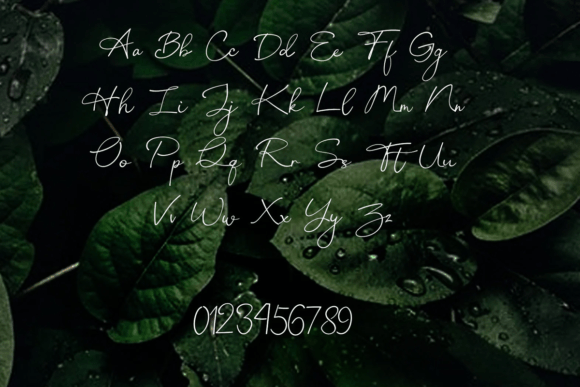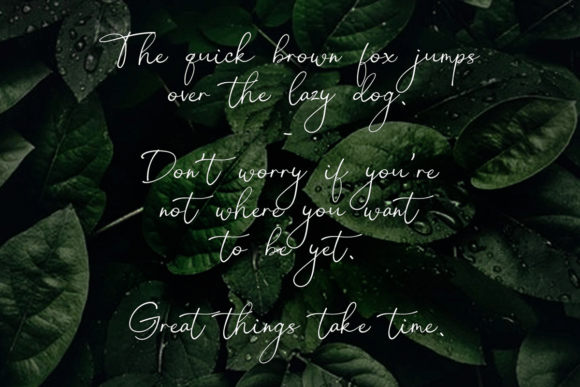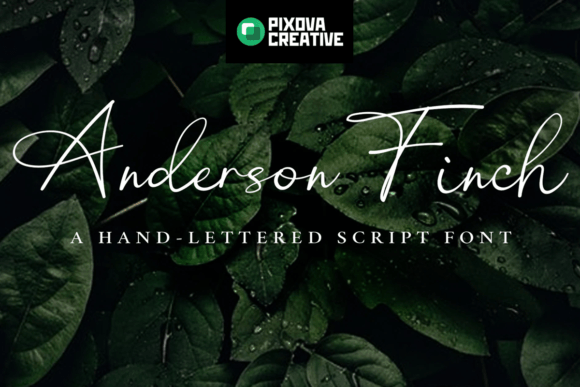
Discover the Elegance of Anderson Finch Font: Elevate Your Designs with Sophistication
In the world of typography, fonts play a crucial role in conveying the tone and personality of a design. For those seeking a stylish script font that blends elegance with a personal touch, Anderson Finch is an exceptional choice. This beautiful font is designed to add a touch of sophistication to any project, making it perfect for designers and crafters looking to create stunning visual content.
The Unique Charm of Anderson Finch Font
Anderson Finch Font stands out with its flowing curves and unique flair, offering a distinctive look that can elevate a wide range of design projects. From elegant invitations and wedding cards to professional branding and packaging, this font brings a level of refinement and class that is hard to achieve with standard typefaces.
Key Features of Anderson Finch Font
- Elegant Script Style: Anderson Finch boasts a beautiful script style that adds an element of grace and sophistication to any text.
- Flowing Curves: The font’s design features smooth, flowing curves that contribute to its elegant appearance.
- Unique Flair: What sets Anderson Finch apart is its unique flair, which gives it a personal and distinctive touch.
- Versatility: This font is incredibly versatile, suitable for a variety of design projects including invitations, branding, packaging, and more.
- Easy to Read: Despite its elegant and cursive nature, Anderson Finch maintains a high level of readability, making it practical for both digital and print designs.
Uses of Anderson Finch Font
The versatility of Anderson Finch Font makes it an excellent choice for numerous design applications. Here are some of the most popular uses:
- Wedding Invitations and Stationery: Add a touch of elegance to wedding invitations, save the dates, and other stationery with Anderson Finch.
- Branding and Logo Design: Use Anderson Finch to create a sophisticated brand identity that stands out from the competition.
- Packaging Design: Elevate your product packaging with a font that communicates luxury and quality.
- Digital Media: Anderson Finch can also be used in digital media, such as website headers, social media graphics, and email newsletters, to add a touch of elegance.
Tips for Using Anderson Finch Font Effectively
To get the most out of Anderson Finch Font, consider the following tips:
- Pair with Complementary Fonts: Anderson Finch pairs well with clean, sans-serif fonts for body text to create a balanced design.
- Use for Headlines and Titles: Its elegant nature makes it perfect for headlines and titles, where you want to make a strong visual impact.
- Adjust Letter Spacing: For optimal readability, especially in longer texts, adjust the letter spacing to ensure a comfortable look.
Anderson Finch Font is a stylish script font that brings a blend of elegance and personal touch to any design project. Its unique flair, flowing curves, and versatility make it an excellent choice for designers and crafters aiming to add a touch of sophistication to their work. Whether you’re creating wedding invitations, branding materials, or packaging, Anderson Finch is sure to elevate your designs to a new level of refinement and style.
With its readability, elegance, and distinctive charm, Anderson Finch Font is poised to become a favorite in the world of typography. So, why settle for ordinary when you can add an extra layer of sophistication to your designs? Explore the possibilities of Anderson Finch Font today and discover how it can transform your visual content into something truly special.